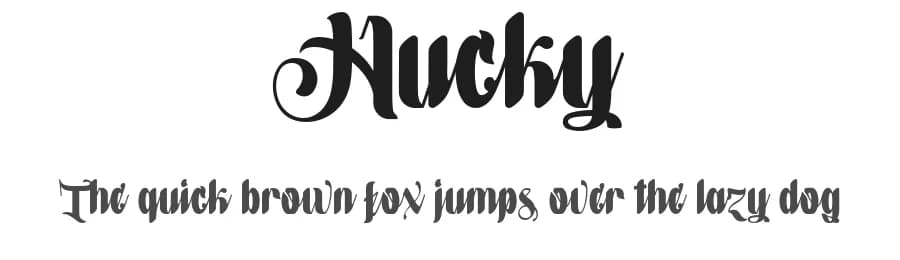
About Hucky Font
Hucky Specifications
| Font Family | Hucky |
| Full Name | Hucky Regular |
| Glyph Count | 85 glyphs |
| PostScript Name | Hucky-Regular |
| Designer | Rai Sanjaya |
Hucky Font is a script font that shines as a display or heading face. Pair it with a clean sans-serif or serif font for body text β the contrast creates a clear hierarchy while the two styles stay balanced and easy to read.
Hucky Font
by Baliniz